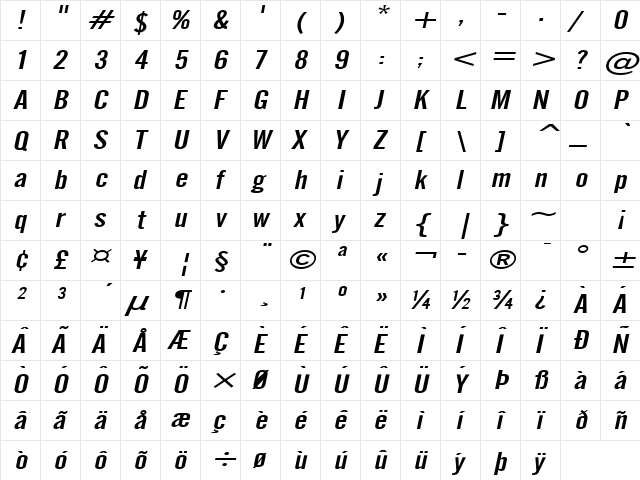
Eng Gothic Extended Italic
Design Context for Eng Gothic Extended Typeface
Eng Gothic Extended has the quiet confidence of well-executed sans-serif typography: versatile, unobtrusive, and dependable at any size. The slanted form adds forward momentum and visual energy.
Font Pairing: Works well alongside a characterful serif or display font that can carry the expressive load while Eng Gothic Extended handles the functional copy.
Pro Tip: Pair Eng Gothic Extended with a display or serif font for headlines — its neutral character makes it an excellent supporting player in complex typographic systems.